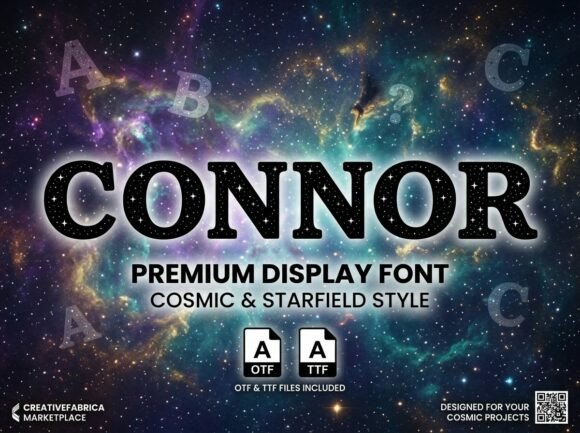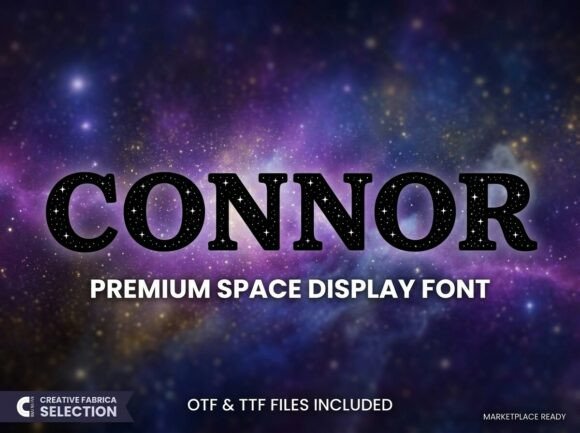
Introducing Connor Font: The Ultimate Display Font for Creative Minds
Are you tired of using the same old fonts for your creative projects? Look no further than Connor Font, a stunning decorative display font designed to turn heads. With its unique artistic elements and strong visual personality, this font is perfect for creators who want to break away from the ordinary and make a statement.
What Makes Connor Font Special?
Connor Font is a versatile font that can be used for a variety of creative projects, from bold headlines and artistic logos to creative packaging. Despite its decorative nature, this font maintains a professional and polished finish, making it suitable for high-end designs. The font features:
- Unique artistic elements that add a touch of elegance to your designs
- A strong visual personality that commands attention
- A versatile design that works well for headlines, logos, and packaging
- A professional and polished finish that ensures your designs look high-end
Before purchasing Connor Font, please note that it is an ALL-CAPS (Uppercase Only) display typeface. This means that it does not include lowercase letters. The font is specifically designed for high-impact headlines, logos, and decorative initials where every letter is a work of art.
This unique design approach allows for:
- Maximum visual impact
- Emphasis on individual letters as artistic elements
- Perfect suitability for titles, headings, and promotional materials
Use Cases for Connor Font
Connor Font is perfect for a variety of creative projects, including:
- Headlines and Titles: Use Connor Font to create eye-catching headlines and titles for your blog posts, articles, and social media content
- Logos and Branding: Create a unique and memorable logo for your business or brand with Connor Font
- Packaging Design: Add a touch of elegance and sophistication to your product packaging with Connor Font
- Advertising and Marketing Materials: Use Connor Font to create attention-grabbing ads, flyers, and brochures
Tips for Using Connor Font Effectively
To get the most out of Connor Font, follow these tips:
- Use it sparingly: Connor Font is designed to make a statement, so use it sparingly to avoid overwhelming your design
- Pair it with a simple font: Balance Connor Font with a simple, easy-to-read font to create visual contrast
- Experiment with colors and textures: Add depth and interest to your design by experimenting with different colors and textures
Connor Font is a stunning decorative display font that can elevate your creative projects to the next level. With its unique artistic elements, strong visual personality, and versatility, this font is perfect for creators who want to break away from the ordinary. Whether you’re a designer, craft, or DIY enthusiast, Connor Font is a valuable addition to your font library.